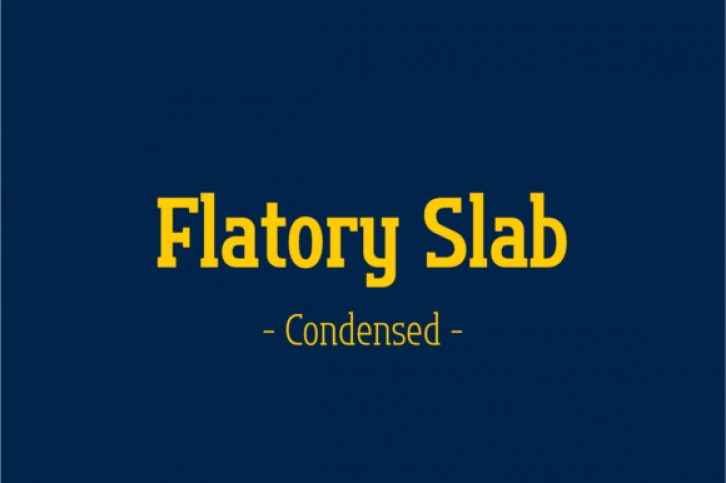
Flatory Slab Condensed is a smooth slab serif font that includes a regular and semicondensed version. It will complement any design need perfectly with its perfectly balanced mix of the smooth and sharp!